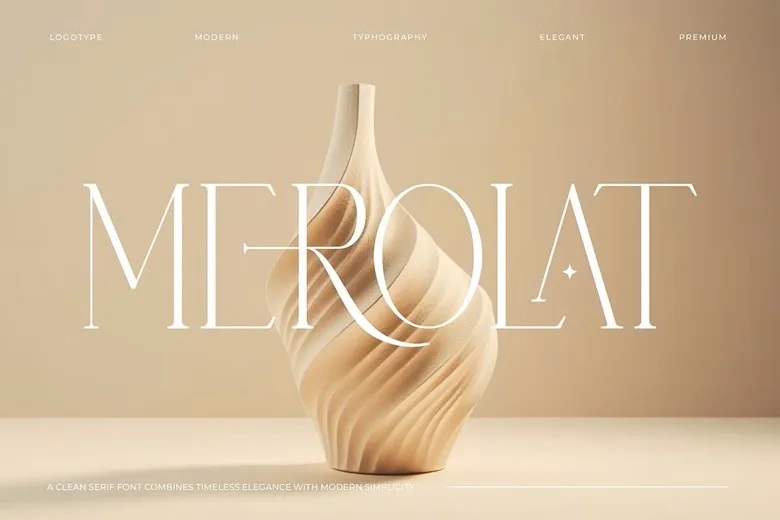
Merolat Font
Merolat is a modern, minimalist serif font designed for branding and logo work. Its clean style gives your projects a beautiful, distinctive look. Use it for invitations, logos, movie titles, business cards, book covers, brand names, and more.
Merolat Serif Font